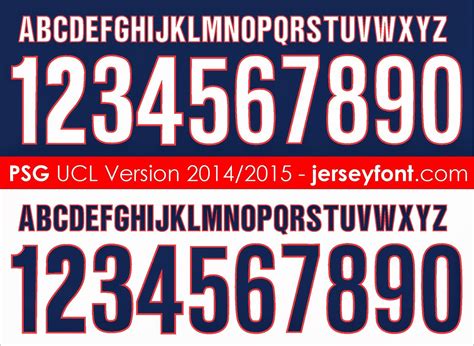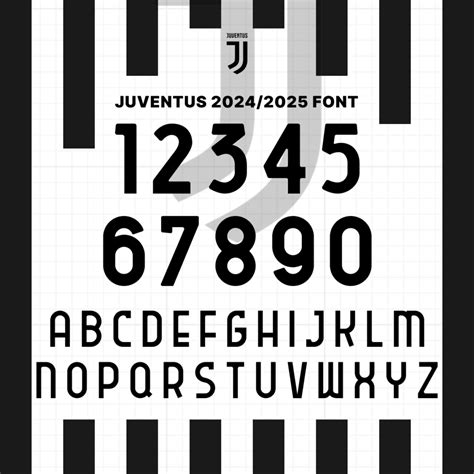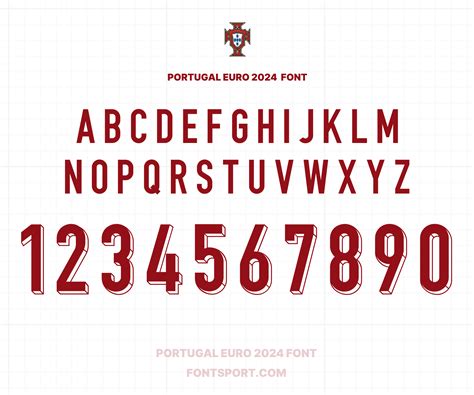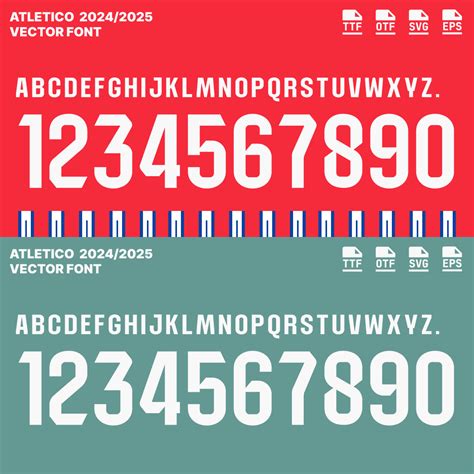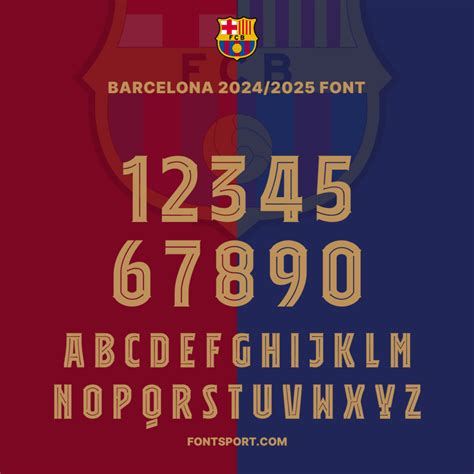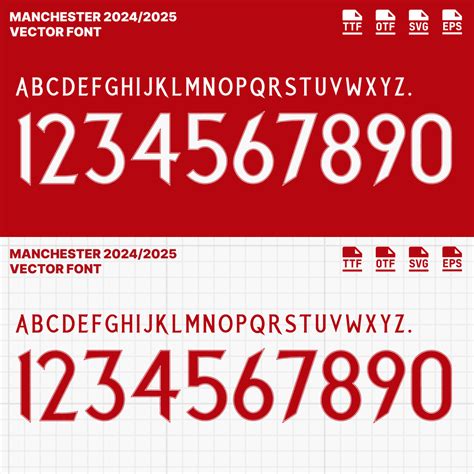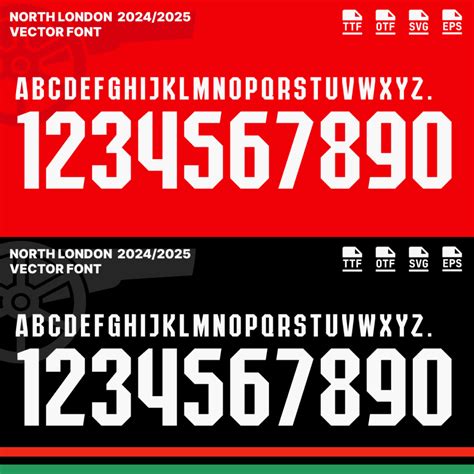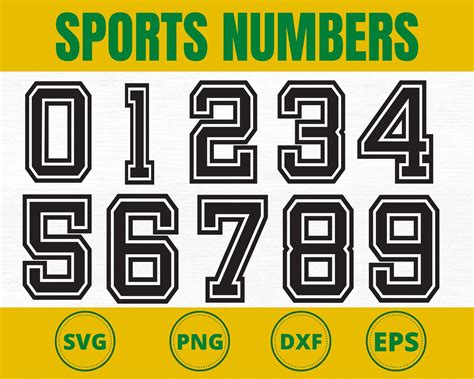
When design impost sports apparel, take the rightfield case for football jersey projects is more than just an aesthetic conclusion; it is about make an individuality that vibrate with fans and players likewise. Whether you are outfitting a local society, a Sunday conference team, or designing a retro-inspired kit, composition serves as the visual voice of the squad. A jersey's lettering must balance legibility from a length with a distinct style that captures the spirit of the sport. From bold, blocky collegiate styles to slick, modern minimalist typography, the choice of typeface specify how the club is comprehend on the pitch. In this guide, we search the indispensable elements of selecting, styling, and implement the perfect typography for athletic wear to control your squad stands out.
The Impact of Typography on Sportswear
Composition in sports design acts as a master identifier. When a watcher looks at a kit, the actor's gens and number are often the inaugural detail they notice. A poorly chosen case can do even the most professional jersey look unskilled. Conversely, a well-selected font for football jersey branding creates a sense of dominance and professionalism.
Balancing Legibility and Style
The cardinal rule of sports typography is legibility. Because jerseys are catch from the stands or through camera lense during fast-paced move, the letters and number must be instantly placeable. Key considerations include:
- Stroke Weight: Thicker shot are broadly best for visibility against a patterned or high-contrast jersey ground.
- Kerning: Proper space between missive prevents fibre from bleeding together when viewed from afar.
- Serif vs. Sans-Serif: While slab-serif baptistery proffer a hellenic, traditional expression, modern sans-serif face are oftentimes cleaner and provide a more contemporary, sleek feel.
Common Font Categories for Football Kits
Different plan philosophies drive the selection of jersey fonts. Understanding these categories can help you contract down the best pick for your squad's specific aesthetic.
| Style Category | Best For | Visual Characteristic |
| Block Varsity | Classic/Traditional Teams | Solid, uniform width, aggressive front. |
| Modern Geometric | Futuristic/Tech-focused Kits | Keen slant, varying apoplexy width, minimalist. |
| Stencil | Tactical/Gritty Themes | Military-inspired, segmented lines, eminent contrast. |
| Custom Script | Retro/Heritage Design | Flow line, individualise, unequaled style. |
Technical Considerations for Printing
Selecting the correct typeface is just half the fight; ensuring it translate well to physical textile is equally significant. Football jersey are typically printed using warmth transference vinyl (HTV), screen printing, or sublimation.
Color and Contrast
The color of the typography must counterpoint sharp with the base coloration of the jersey. A white fount on a light lily-livered t-shirt will be inconspicuous to cameras, whereas a black or navy bluish outline on a white baptistry furnish the necessary pop to make the figure stand out clearly.
The Role of Outlines and Shadows
Bring a slender scheme (much called a "keyline" ) or a elusive drib apparition can significantly heighten legibility. This proficiency is often utilize in professional leagues to disunite the text from complex ground patterns or subtilize design.
Customization Trends in Modern Design
The current marketplace for sports kits is locomote toward personalization. Many teams now commissioning signal typefaces that comprise insidious optic motifs, such as logo or geometrical shapes embedded into the letters themselves. This creates a proprietary look that can not be retroflex by competitors or mass-market brand.
Choosing the correct esthetic for a squad command equilibrise personal vision with functional prerequisite. By prioritizing legibility, considering the printing medium, and choose a typeface that aligns with the gild's heritage or future dream, you can create a face that feels both professional and iconic. Remember that while trends in sportswear modification speedily, the profound need for open, impactful identification stay ceaseless. Invest clip in the design phase, examine your layout against a variety of backgrounds, and concentrate on unclouded lines to control the final product looks olympian on the battleground. A well-executed jersey blueprint reinforce squad unity and leaves a long-lived impression, cementing the individuality of the squad through the ability of a perfectly select font for football t-shirt design.